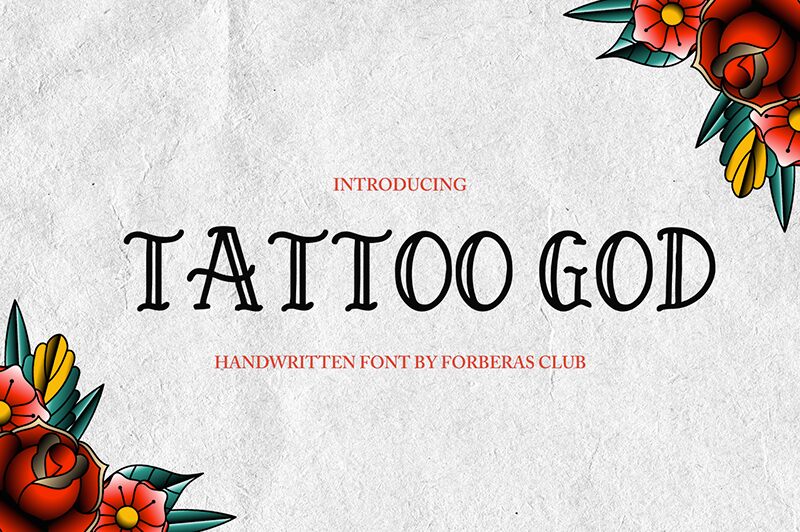
Tattoo God is a striking display font created by Forberas Club, perfect for projects that require an edgy and bold aesthetic. With its unique tattoo-inspired design, this typeface evokes a sense of rebellion and nonconformity that is sure to grab attention. The semi-bold font weight adds to the overall impact of the letterforms, making it ideal for use in branding, packaging, album covers, and even tattoo designs. Whether you're looking to create something badass or simply want to inject some personality into your project, Tattoo God has got you covered.